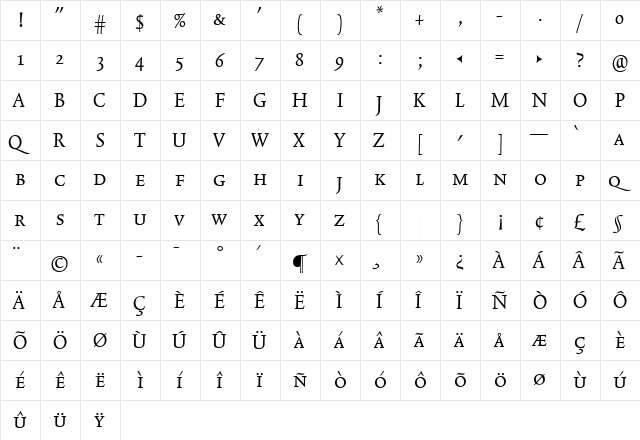
TriniteNo2 Roman
| Foundry | Copr. The Ensched Font Foundry |
Design Context for TriniteNo2 Typeface
TriniteNo2 offers clean, dependable letterforms without strong stylistic allegiance, making it a practical choice for designers who need flexibility.